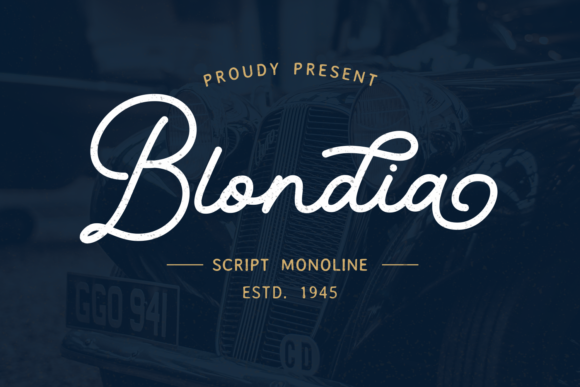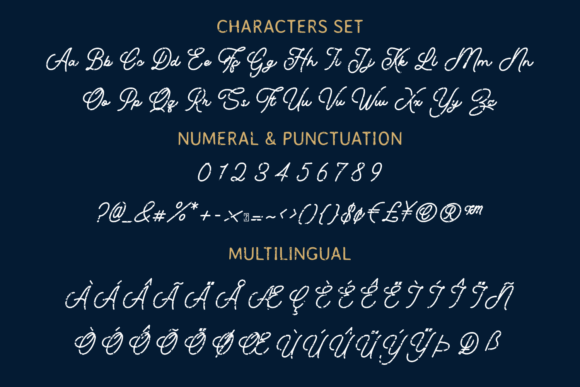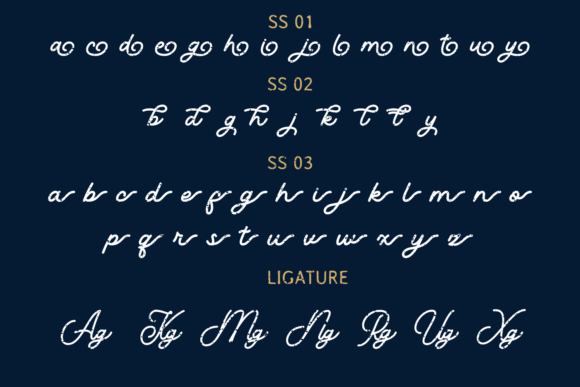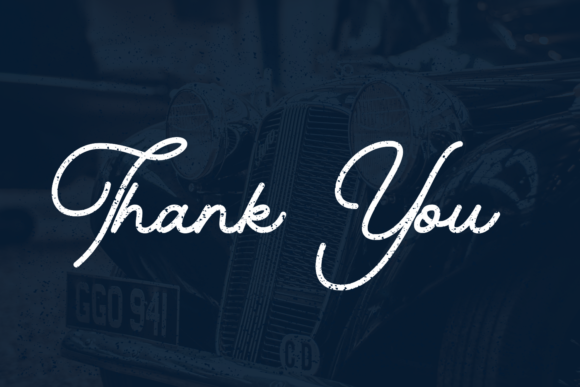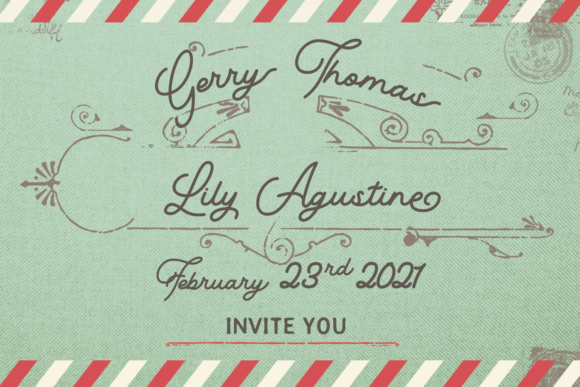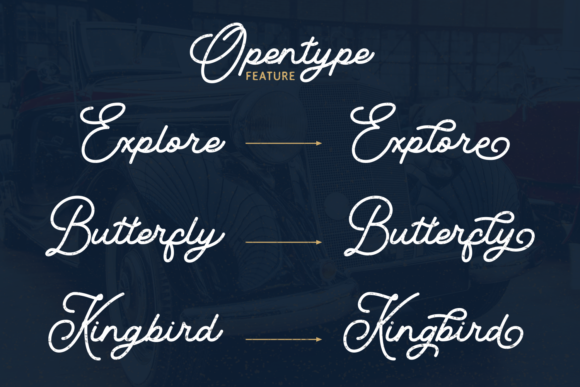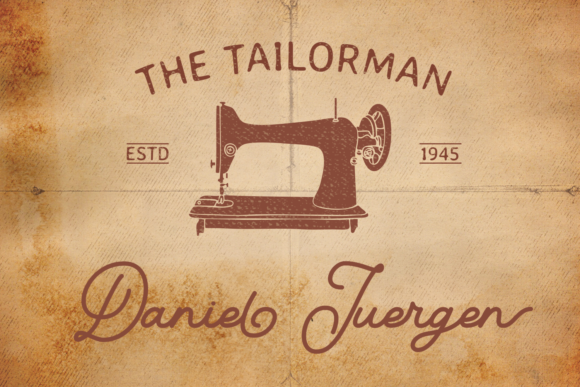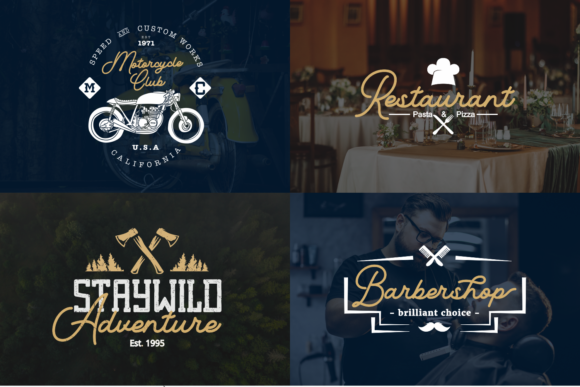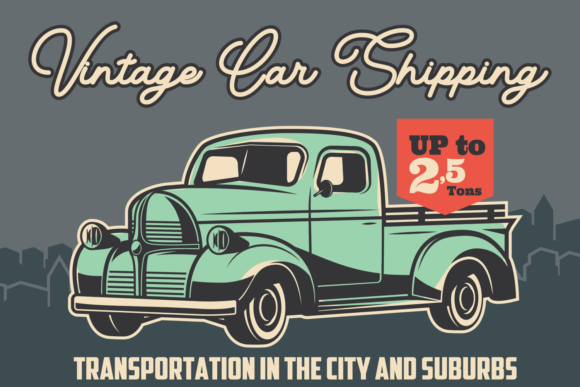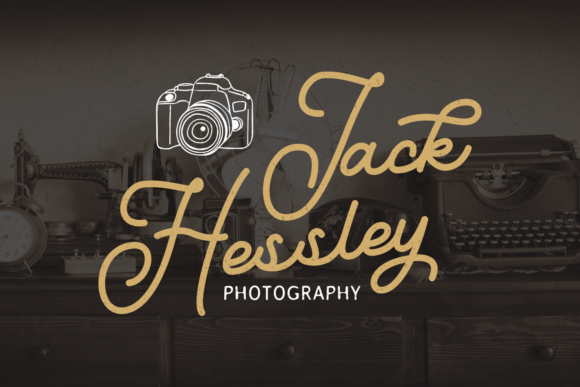
Blondia Font
About Blondia Font
Blondia is an enchanting monoline script font. Blondia will work perfectly for vintage logos, branding, social media posts, quotes and any design that requires a personalized look!